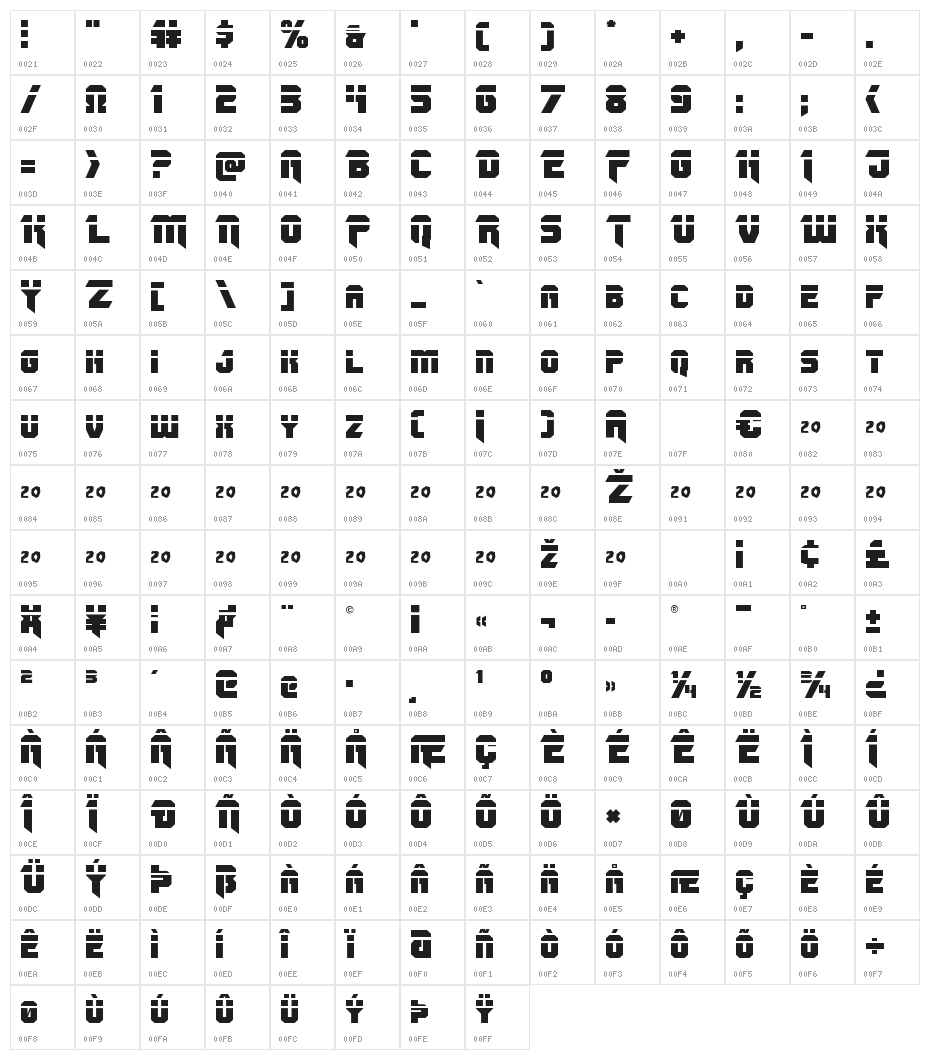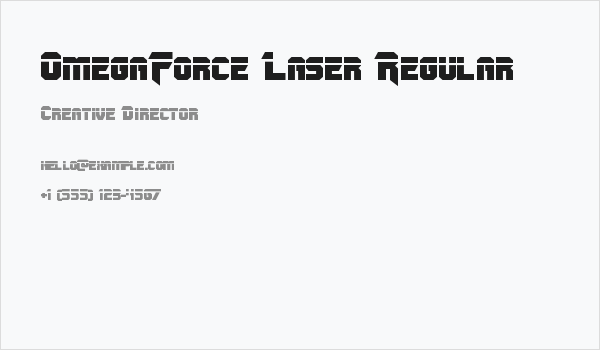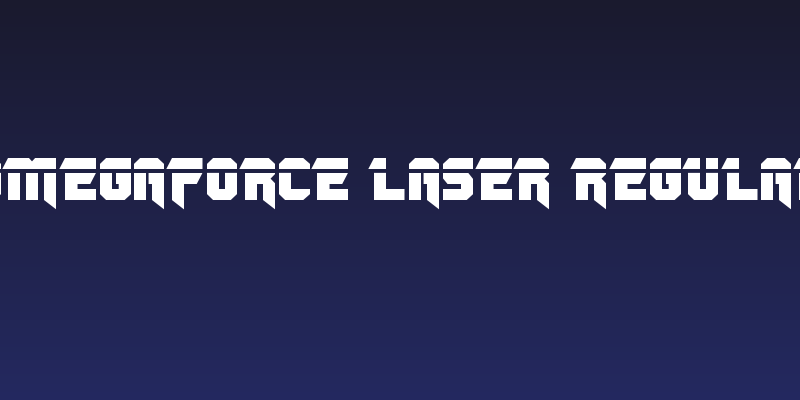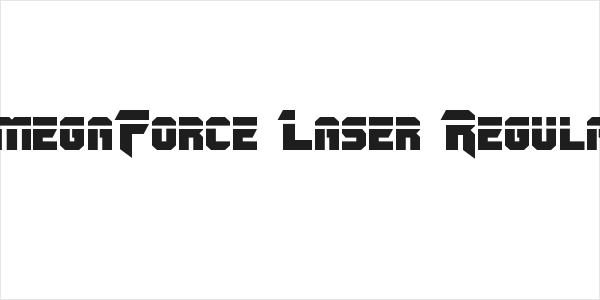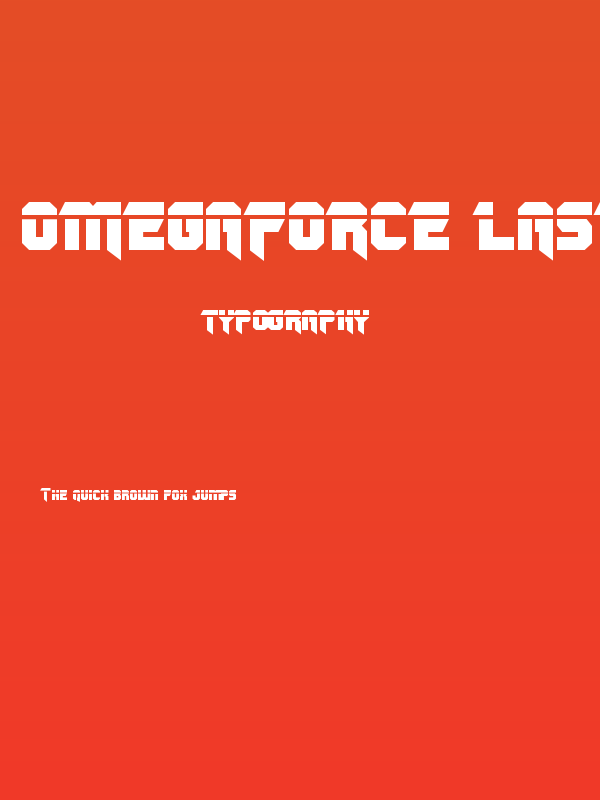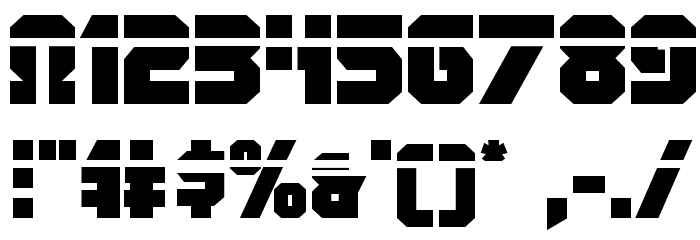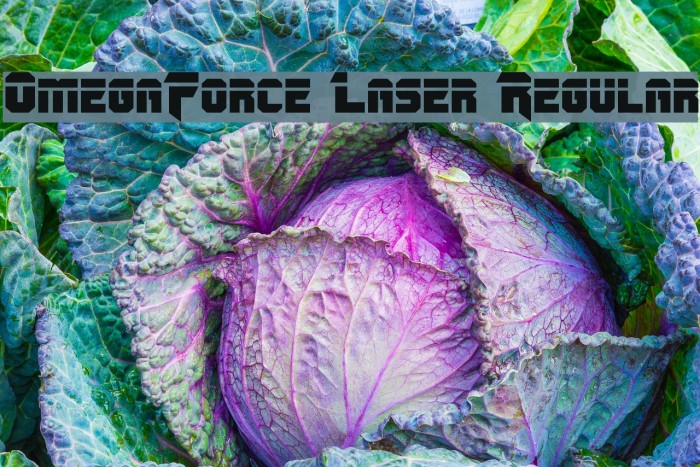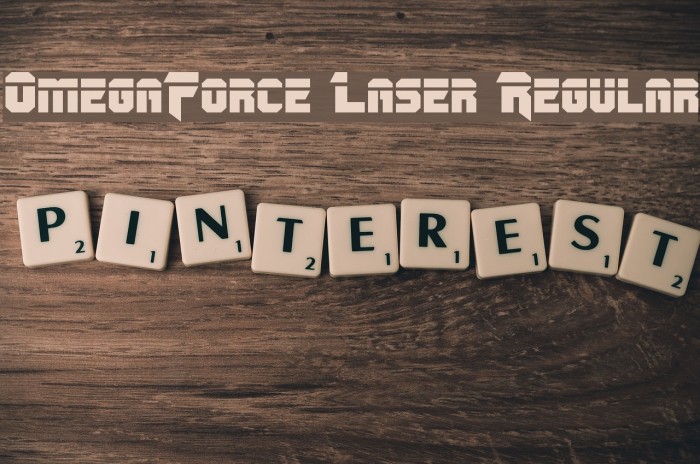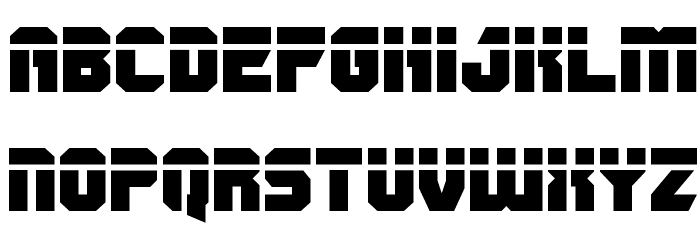
OmegaForce Laser Regular Font
OmegaForce Laser Regular Description
This font features a bold, futuristic design with sharp, angular edges and a geometric structure. The characters are heavily stylized, giving them a distinct, mechanical appearance. The uppercase and lowercase letters maintain a consistent height, contributing to a uniform look. The numbers and special characters follow the same design principles, ensuring cohesion across all glyphs. This font's unique style makes it suitable for projects that require a modern, tech-inspired aesthetic.